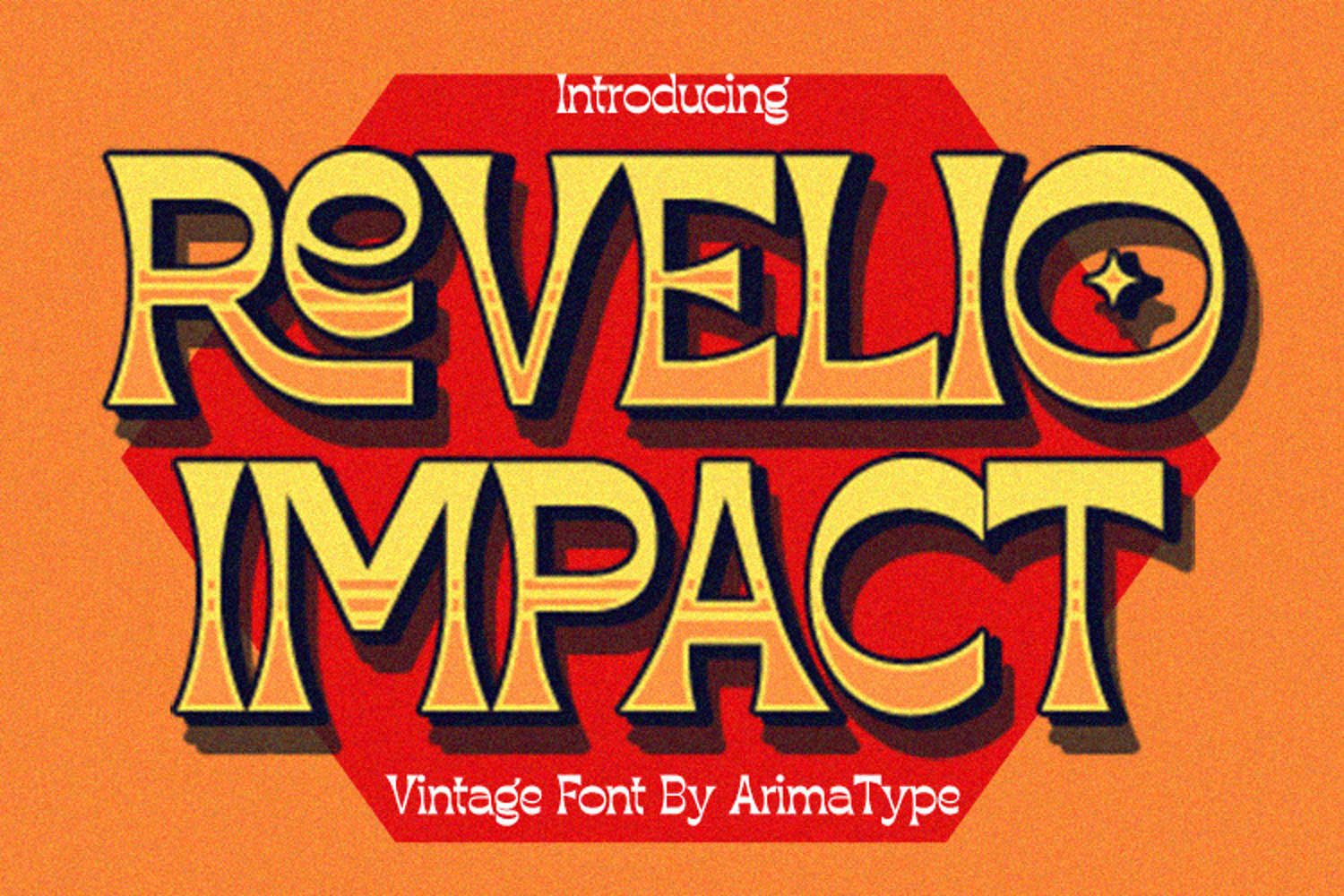
Revelio Impact
Revelio is a cool, bold, retro-styled display font. This font is PUA encoded which means you can access all of the beautiful glyphs and swashes with ease!